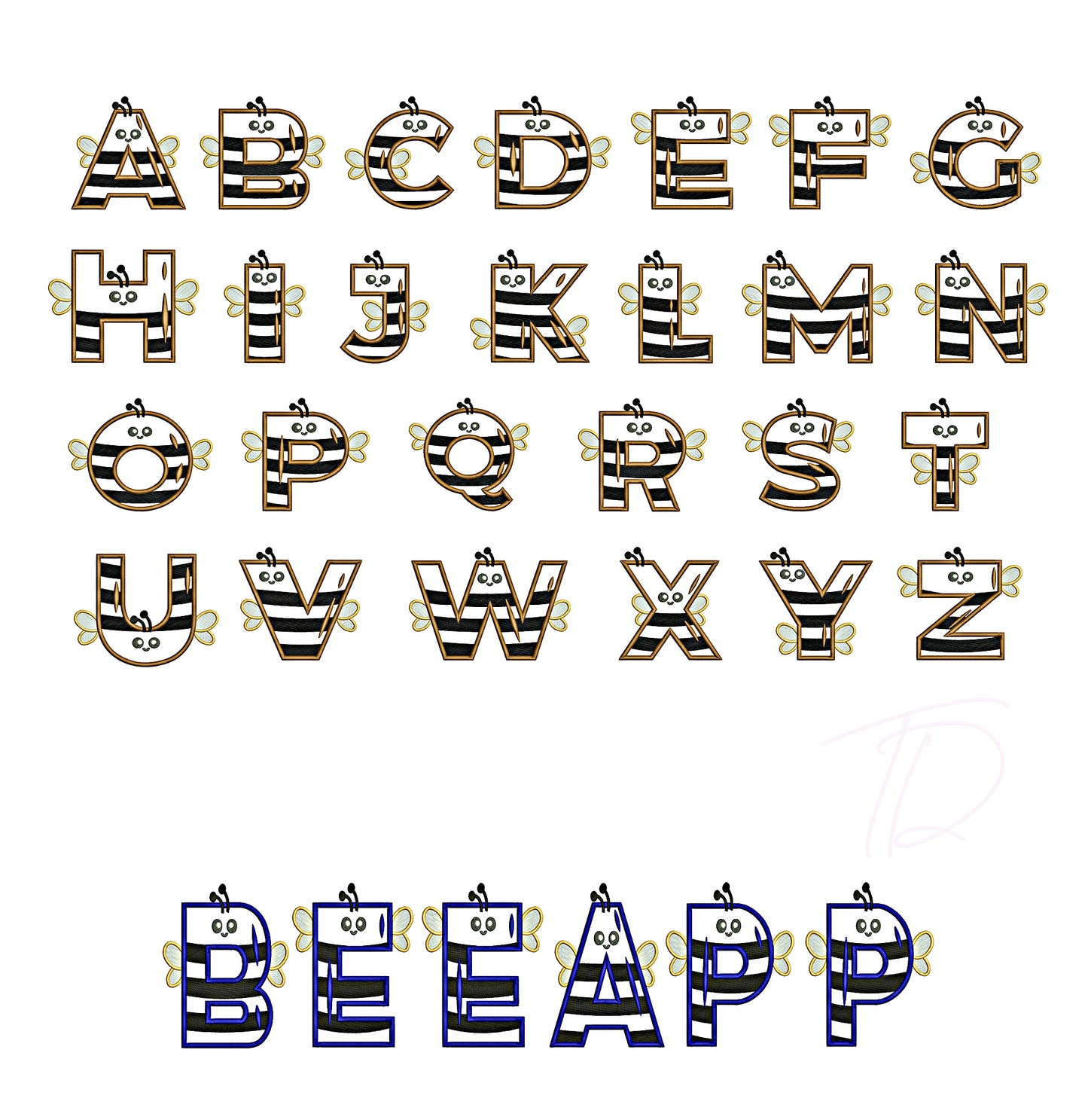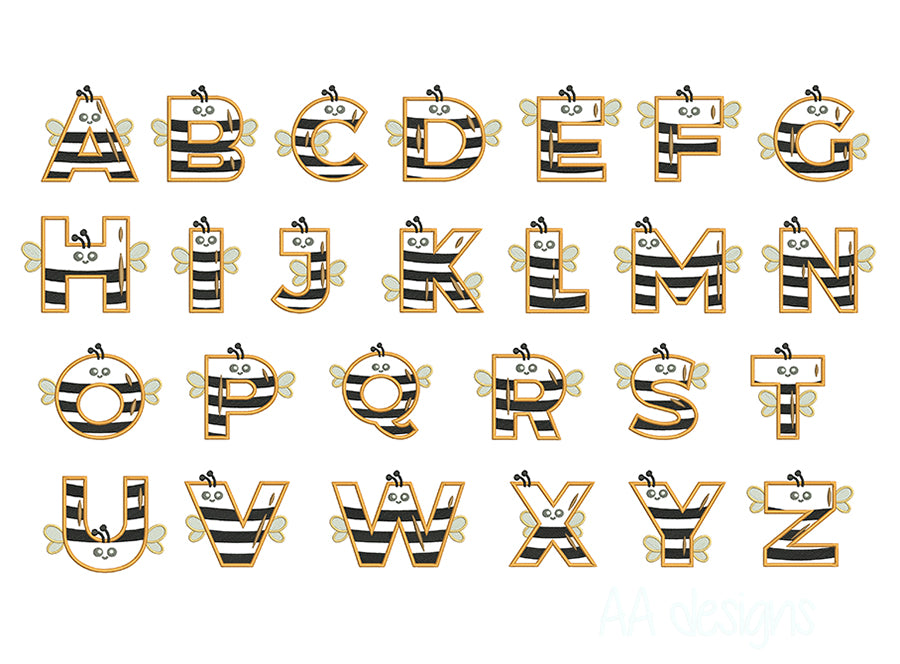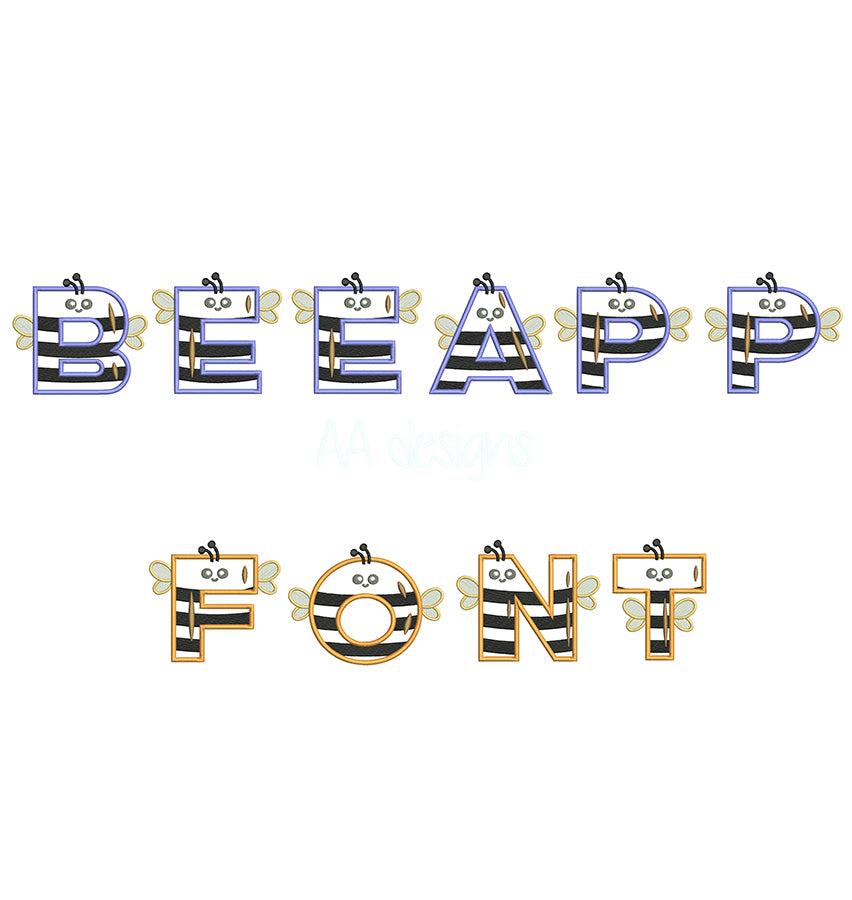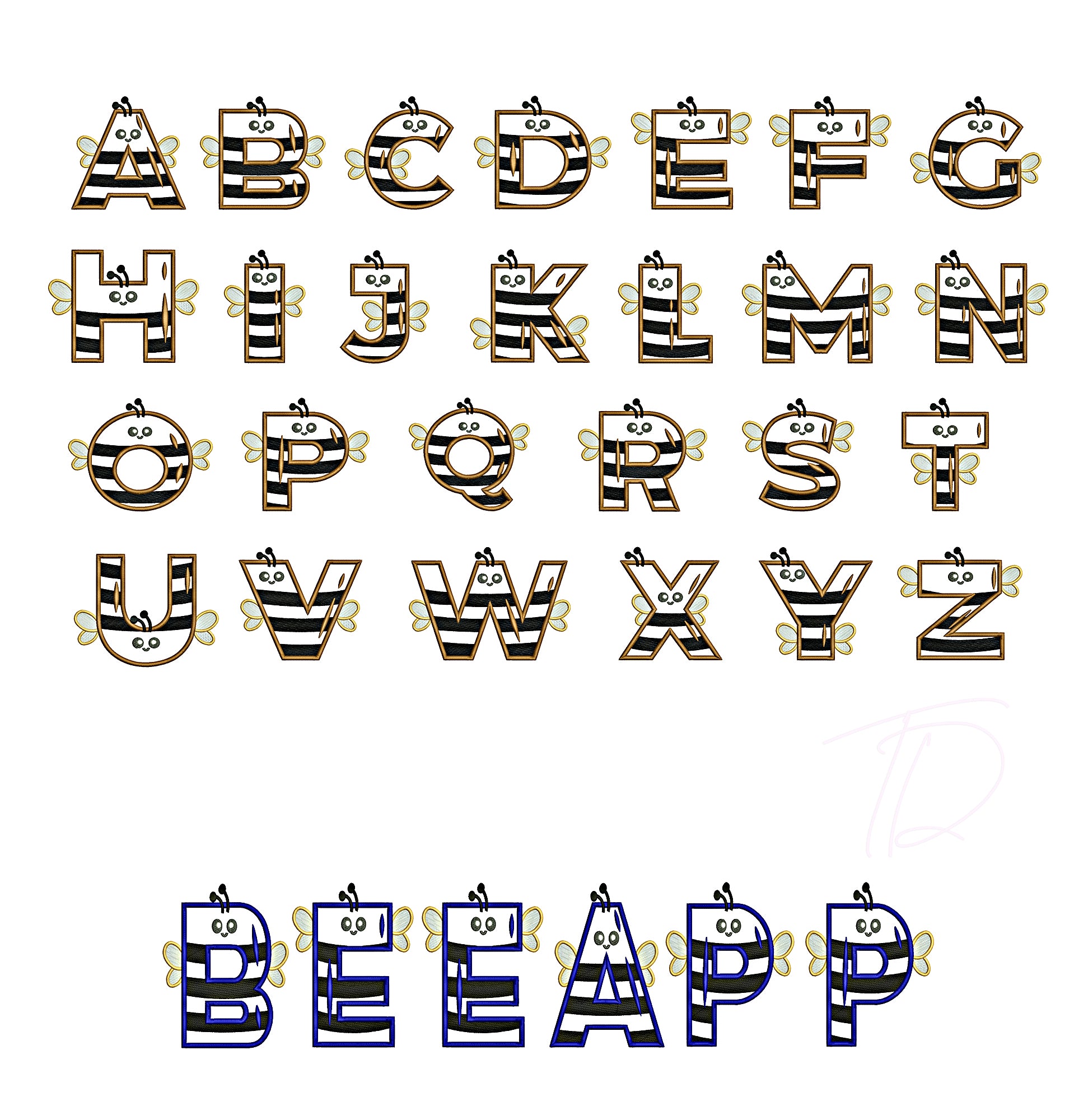
Bee applique embroidery digital font. Applique embroidery font with cute bee for baby
Bee applique embroidery digital font
This font comes with letters in 3 sizes, A-Z